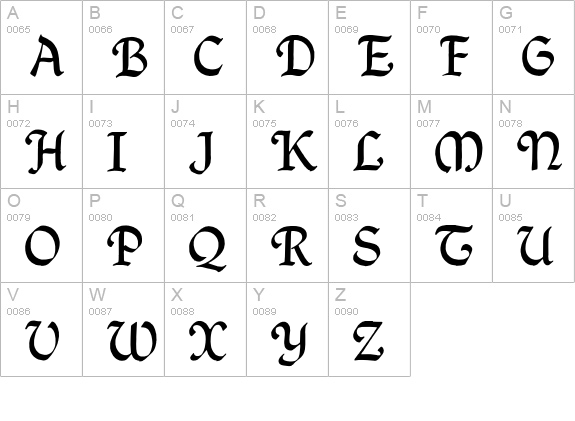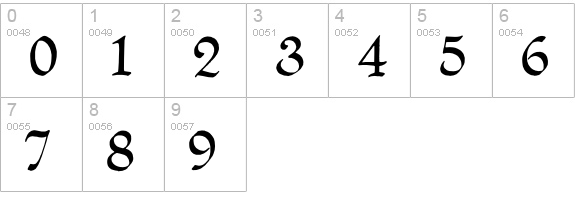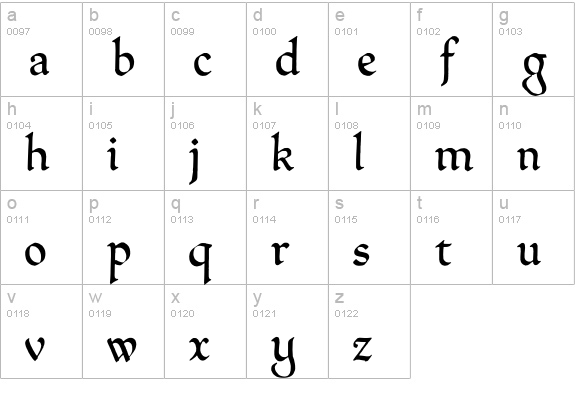
QuillPerpendicularRegular Font Details
QuillPerpendicularRegular font is a unique and modern typeface that combines elegance with a touch of playfulness. Its letters are crafted with precision, featuring clean lines and a distinct perpendicular design. This font is perfect for adding a stylish and sophisticated look to your projects. What makes QuillPerpendicularRegular font even more appealing is that it is available for free download at FontsMarket.com. Whether you're working on a logo, branding materials, or any other creative project, this font is sure to make a bold statement. Its versatility allows it to be used in various design contexts, making it a valuable addition to any designer's toolkit. Download QuillPerpendicularRegular font today and elevate your designs with its unique charm and flair.